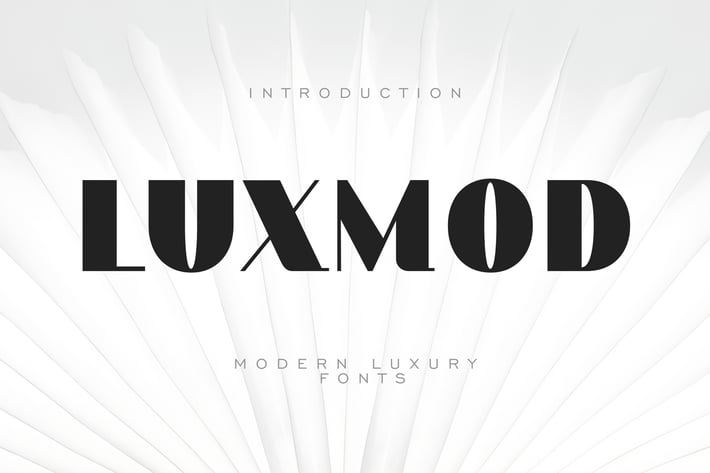
Luxury Modern Font - Luxmod
Luxmod - Luxury Modern Font
Introducing Luxmod - Luxury Modern Font - a Modern Professional Typeface excellent used for Heading or Title, Logotype, Merchandise, Clothing, Magazine, Corporate, Retro Festival, Beauty, Makeup Product, Event, Ticket and many more.